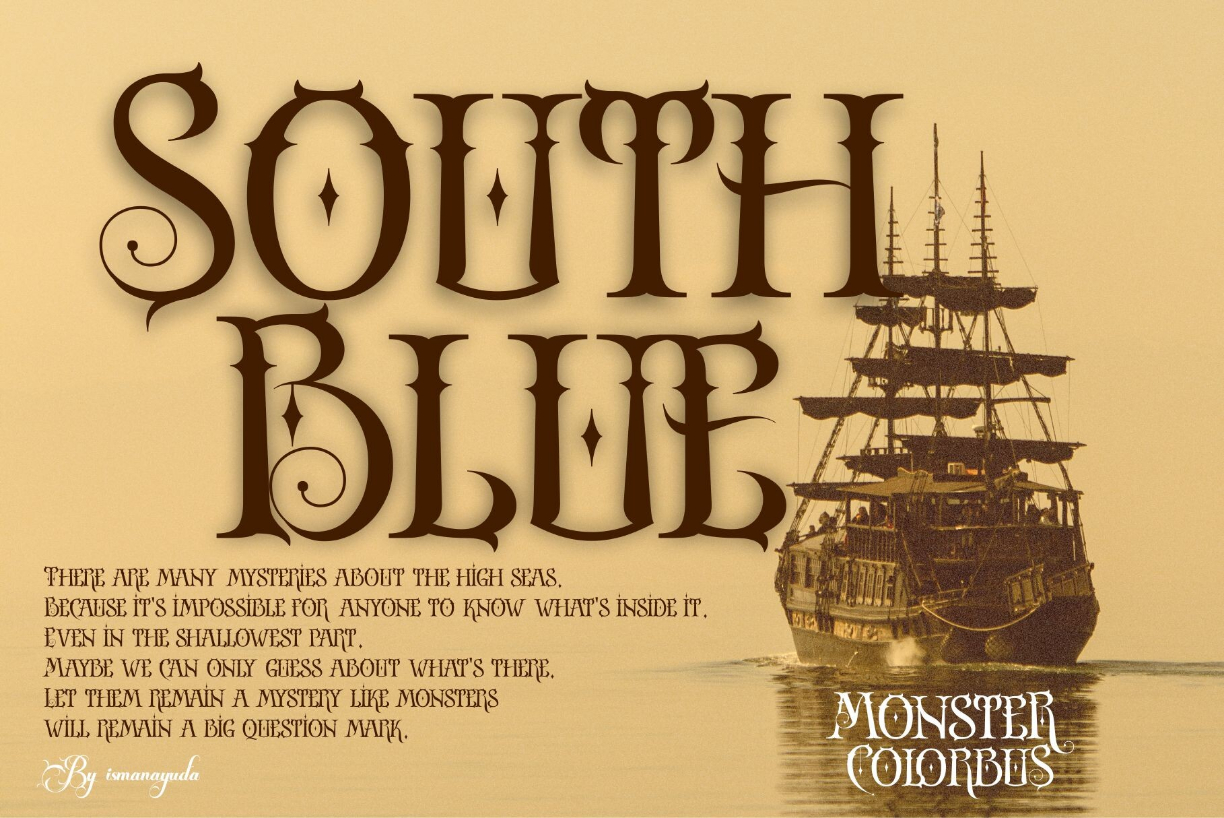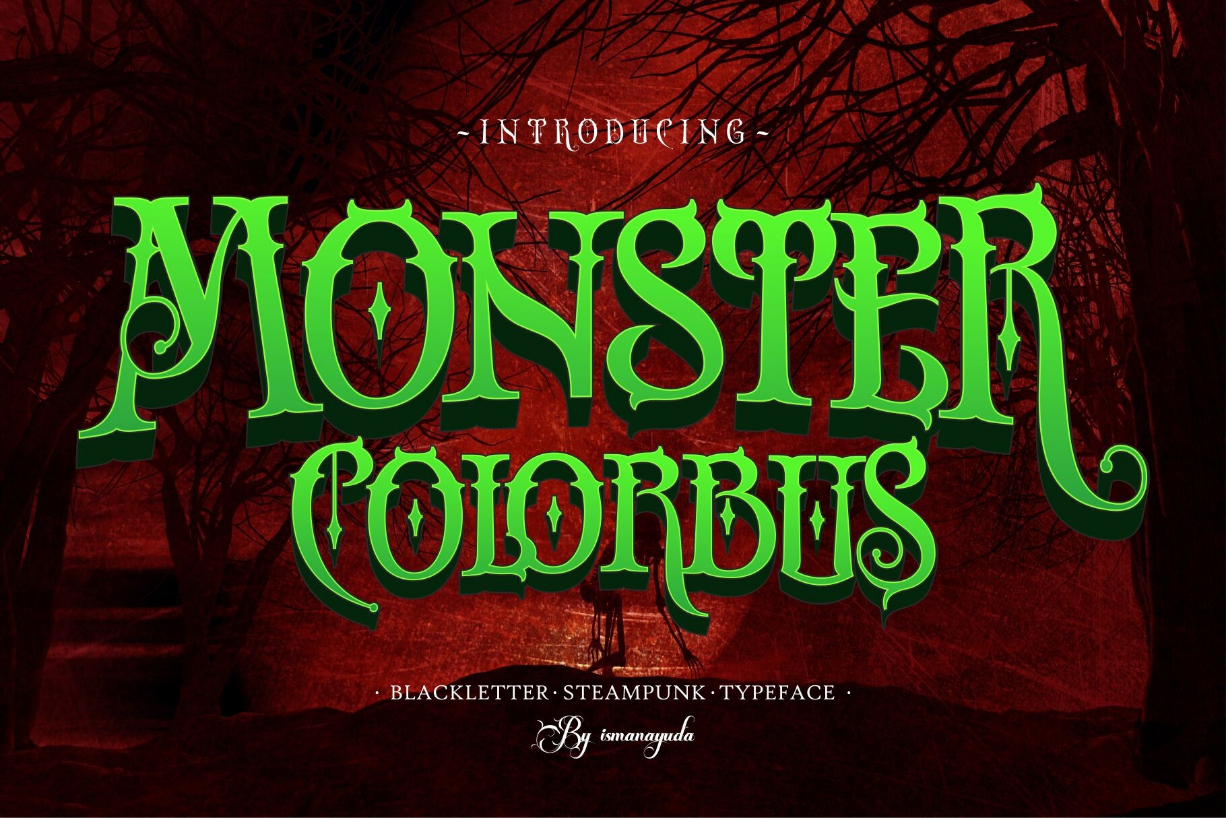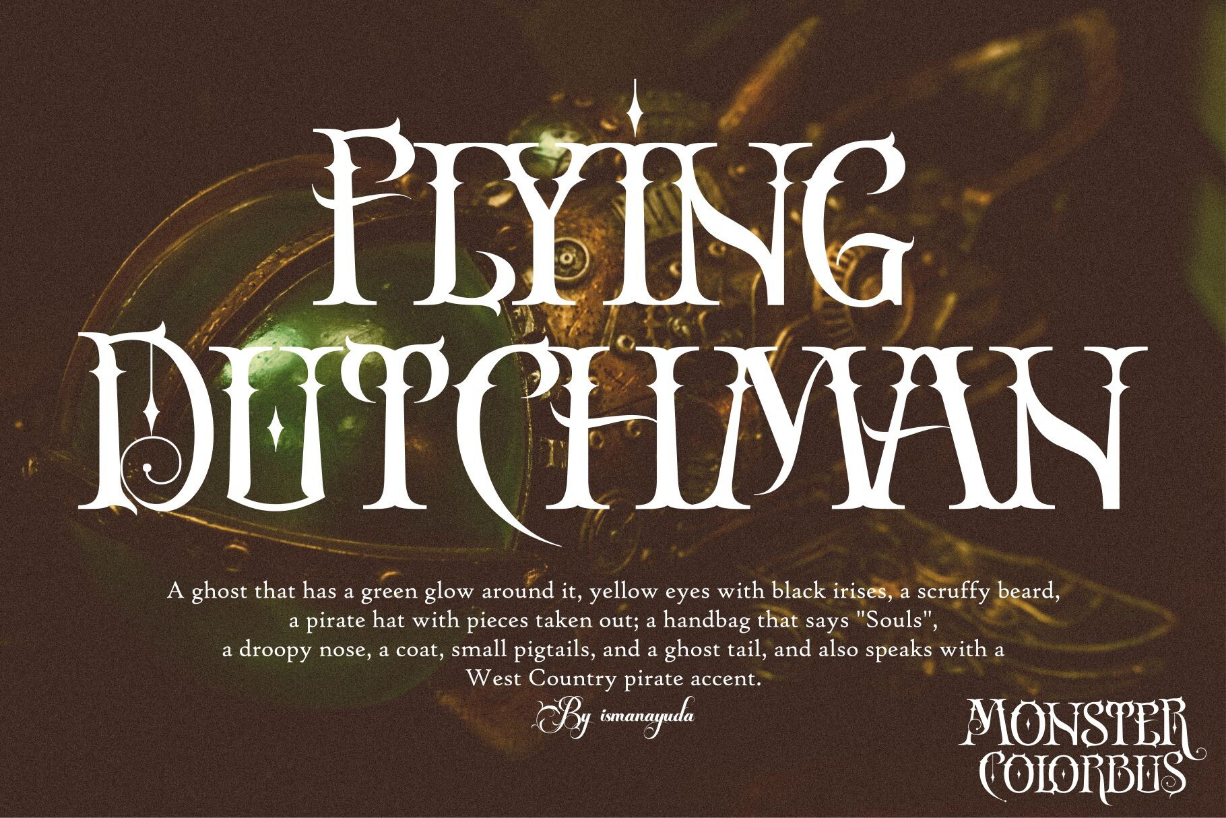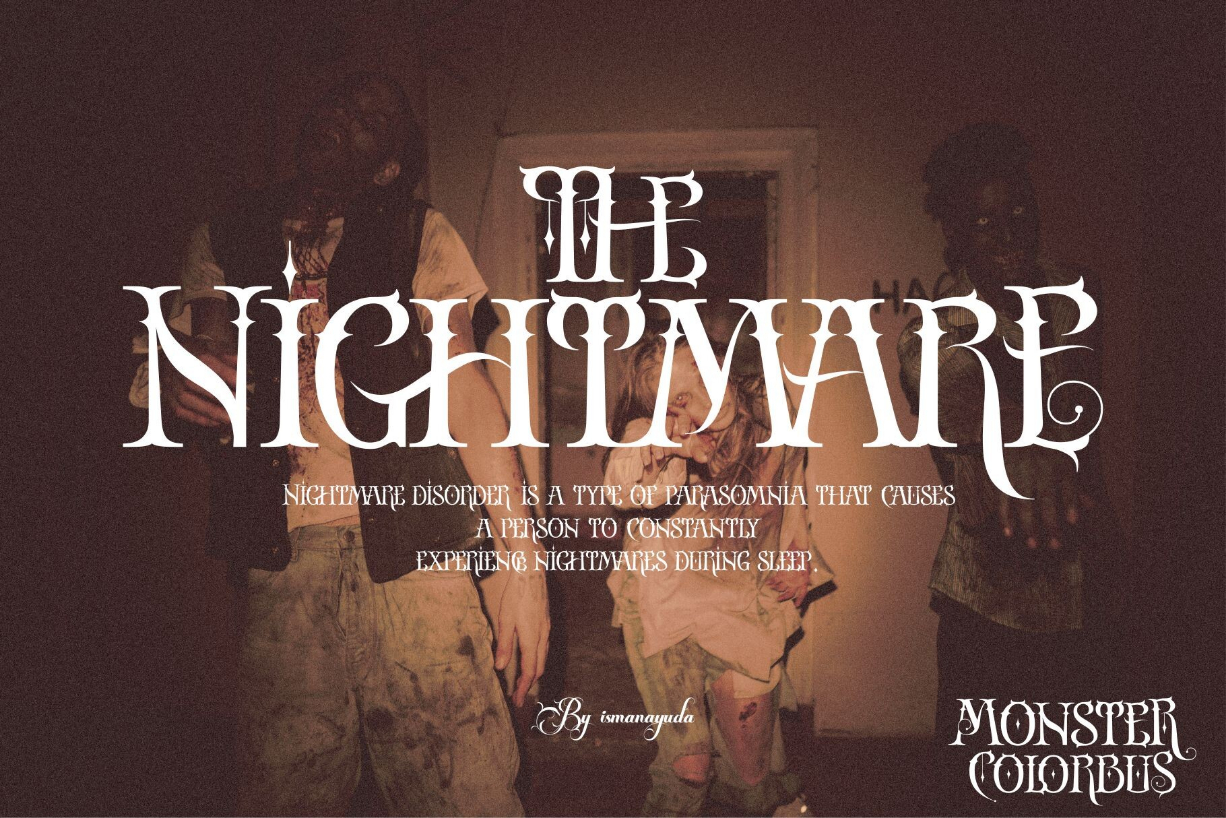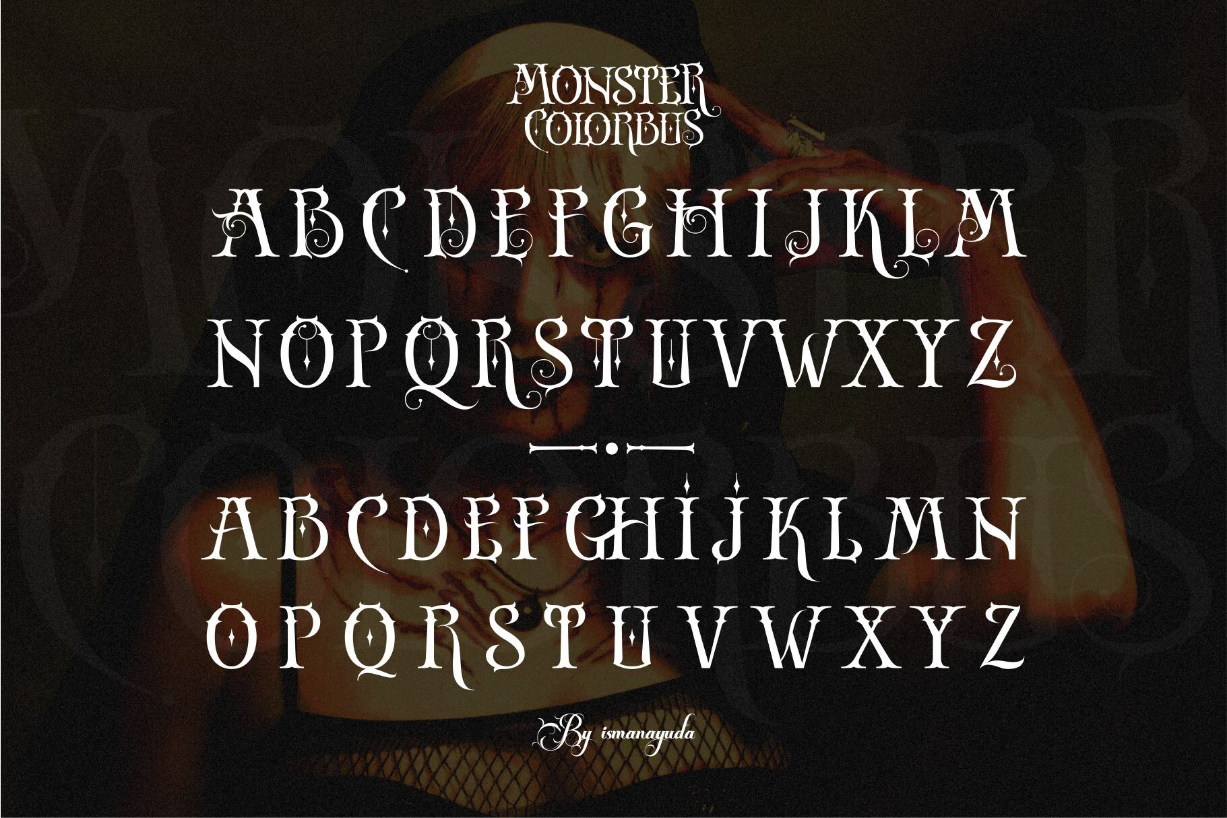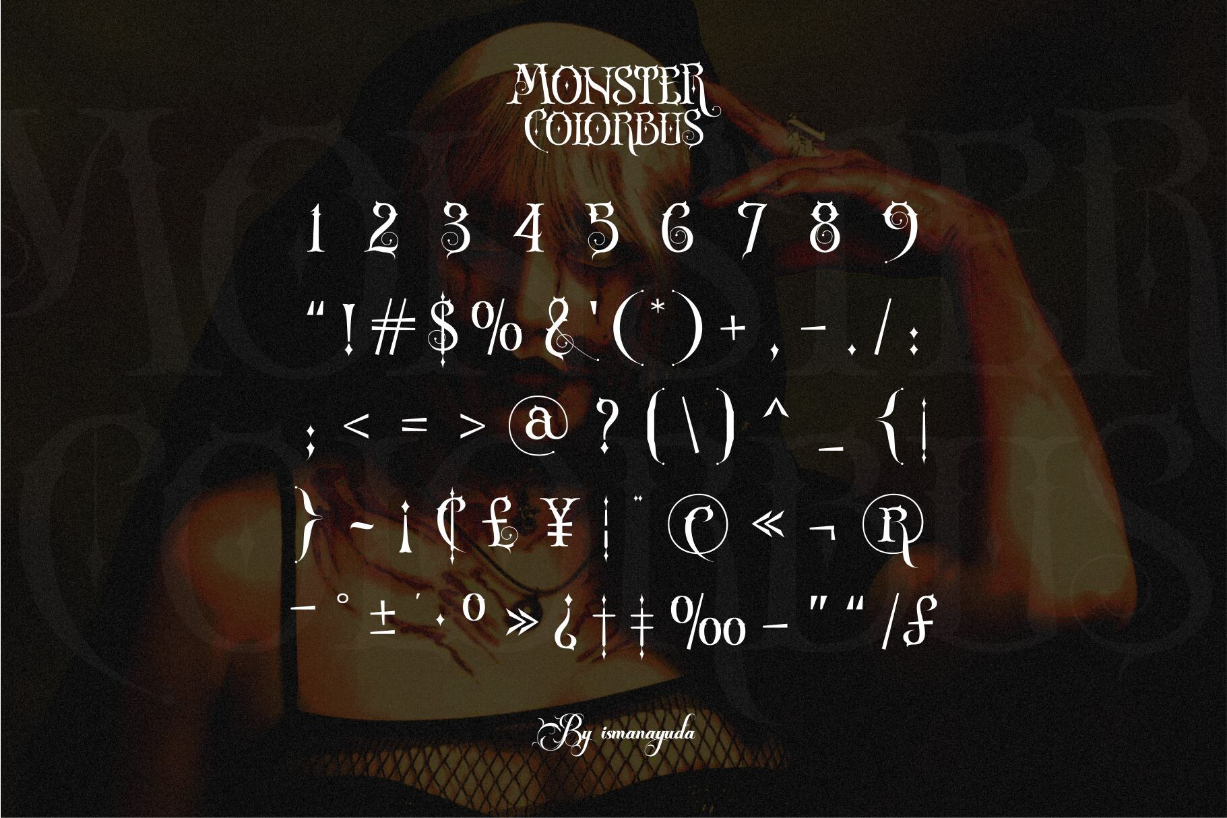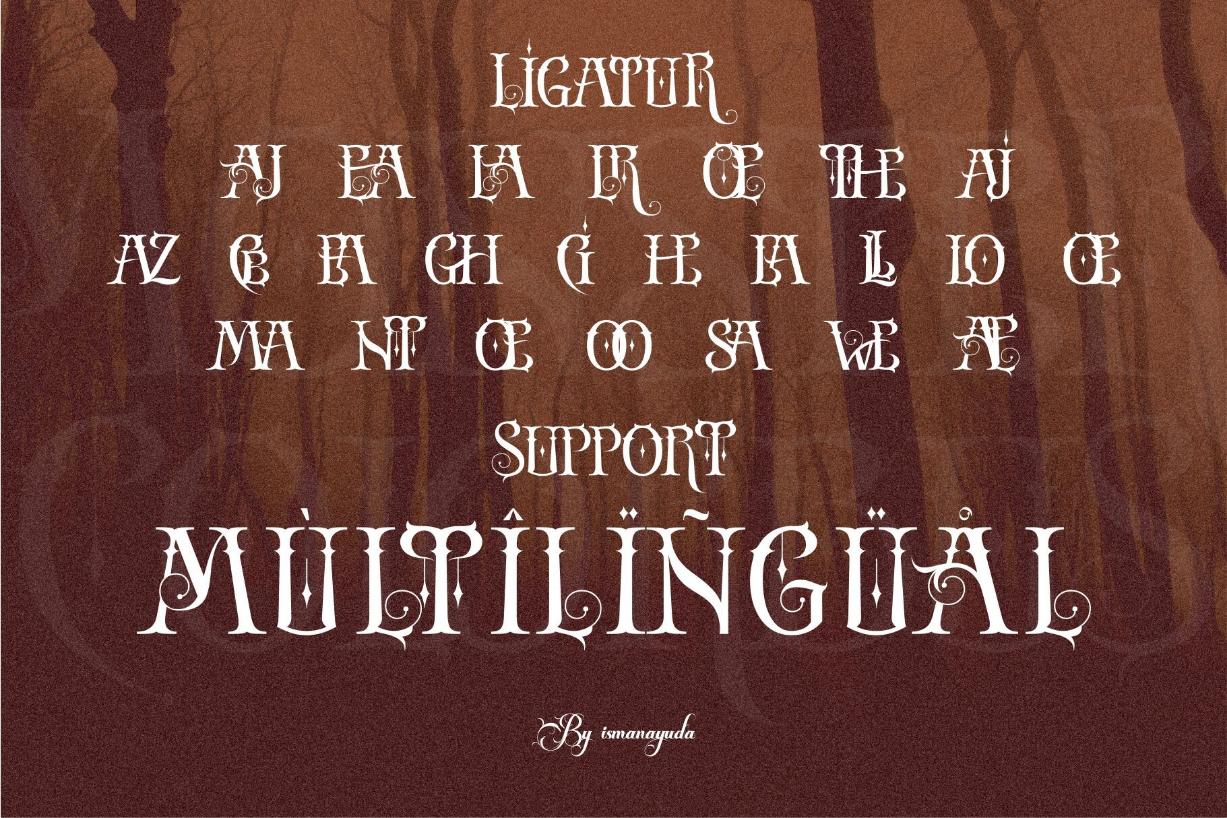
Monster Colorbus Font
About Monster Colorbus Font
Monster Colorbus is a font that has a blackletter style but is given a steampunk feel so that users can appreciate works of art more through a beautiful writing style.